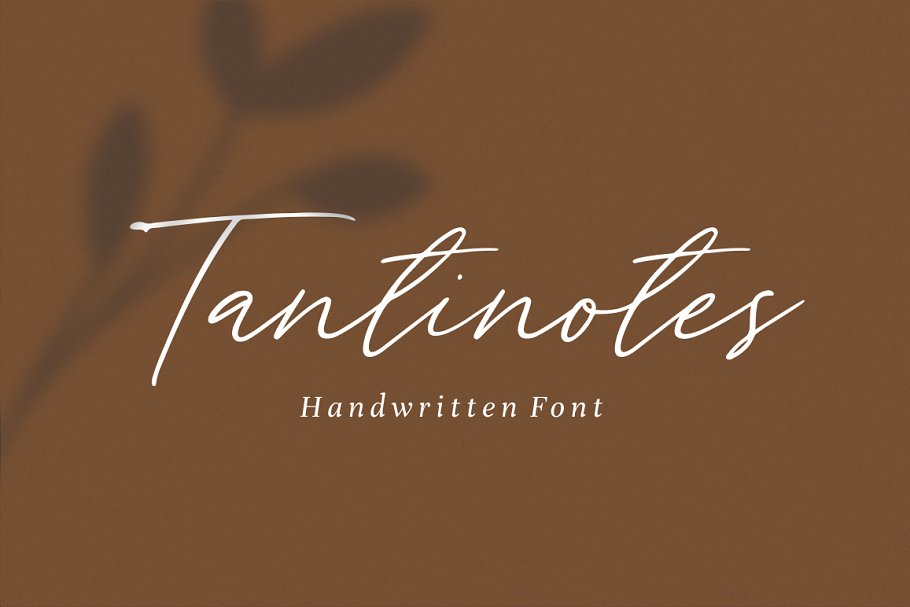
Introducing Tantinotes - Handwritten Font, the ultimate font for movie scripts and beyond! Created by the talented Yusron Billah, this natural handwritten font is an absolute game-changer for any design project. With its captivating charm and versatility, Tantinotes will effortlessly elevate your creations to new heights.
Are you looking to make a lasting impression? Tantinotes is the answer! Whether you're designing a logo, invitation, stationery, or wedding masterpiece, this font will add a touch of elegance and authenticity that will leave a lasting impression on your audience. Its unique script style is perfect for capturing attention and creating a sense of intrigue.
But Tantinotes doesn't stop there. It goes above and beyond to cater to all your creative needs. From social media posts to advertisements, product packaging to designs, labels to photography, and even watermarks for your special events, this font has got you covered. Its versatility knows no bounds, making it the perfect companion for any project.
Featuring a complete set of uppercase and lowercase letters, along with multilingual symbols, numerals, and punctuation, Tantinotes allows you to express your creativity without limitations. Its seamless integration with various design software ensures a smooth and hassle-free experience, allowing you to focus on what truly matters – your masterpiece.
But what truly sets Tantinotes apart is its ability to evoke emotions and capture the essence of your message. Each stroke of this handwritten font tells a story, adding a touch of personality and charm to your designs. It's more than just a font; it's a powerful tool that speaks directly to the hearts of your audience.
In a world filled with generic fonts, Tantinotes stands out with its unique character and captivating style. It's time to leave a lasting impression with your designs and make a statement that resonates with your audience. Whether you're a professional designer or a creative enthusiast, Tantinotes is the missing piece of the puzzle that will take your creations to the next level.